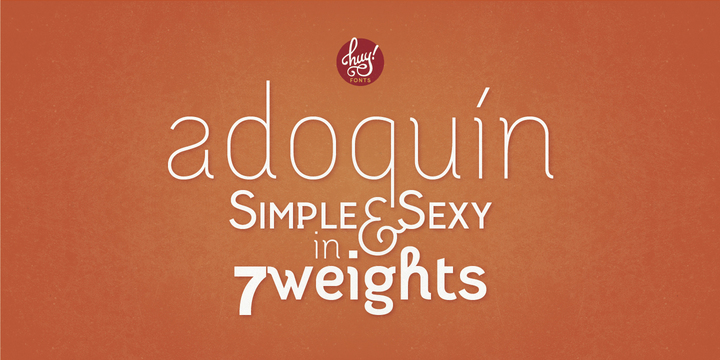
Adoquin Font
Adoquin
Adoquin is a typeface created by Juanjo Lopez and published by Huy!Fonts. It is a geometric and humanist font.
Adoquin font details
Foundry: Huy!Fonts
Released: 2013